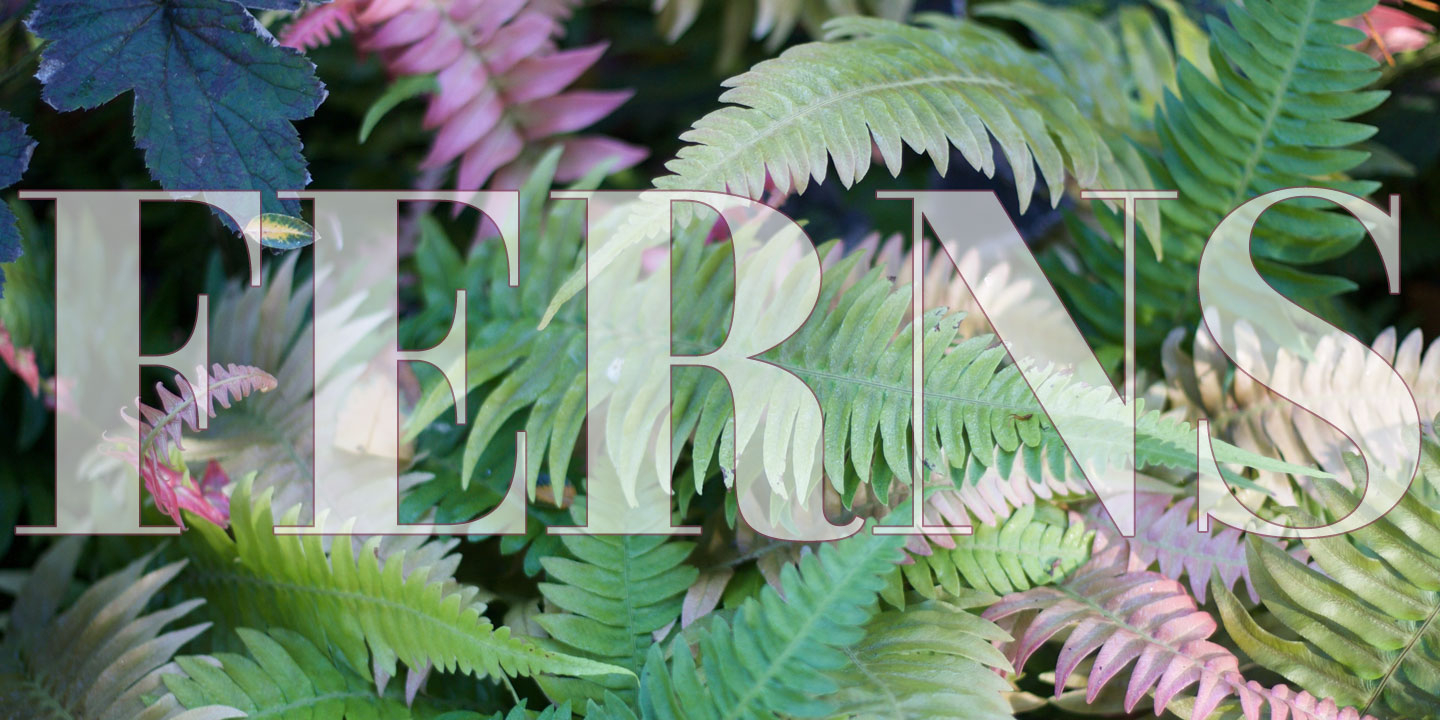
Dionisio is a serif font family. This typeface has ten styles and was published by CastleType.
Dionisio™ was inspired by the extremely condensed and elegant Ransahoff, but with the warmth and sensuousness of Bodoni. Less extreme than either, Dionisio brings together the best of both, making it the perfect choice where a slender, sophisticated typeface is needed. Designed as a display face, Dionisio can also be used for text at high resolutions. Includes an extensive character set and OpenType features.